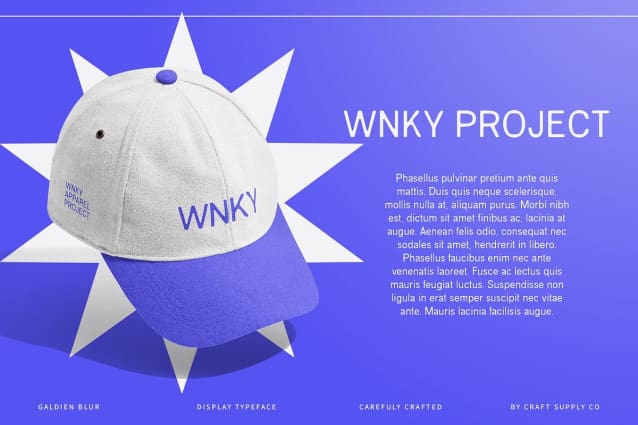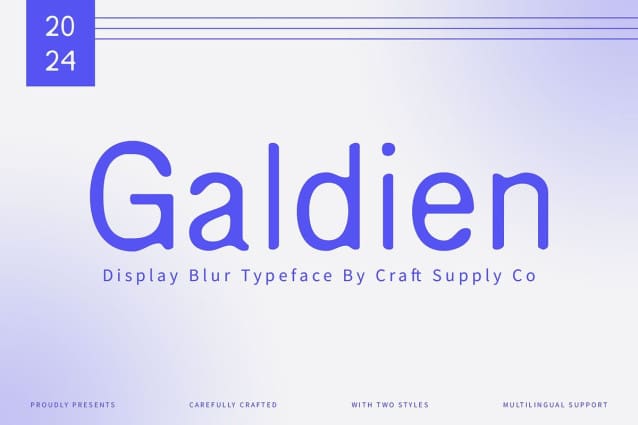
Galdien Blur Font
Galdien Blur Font is a modern sans-serif font that combines the robust, clean lines of a grotesque form with an innovative blur effect. The grotesque design is known for its bold and minimalist approach, making it a staple in modern typography. Galdien Blur takes this a step further by adding a soft, diffused touch through its blur effect, which introduces a unique visual element that differentiates it from conventional sans-serif fonts.
Unique Visual Depth The blur effect introduces a soft, diffused quality to the clean lines of the grotesque design, adding a layer of depth and visual intrigue. This combination creates a unique, dynamic appearance that enhances the font’s impact in any design.
Perfect for Contemporary-Themed Projects Galdien Blur is the go-to choice for projects that demand a balance between boldness and creativity. Its strong grotesque form ensures clarity and impact, while the blur effect adds a touch of innovation, making it perfect for branding, posters, web design, and other contemporary-themed applications. Whether you’re looking to make a statement with your design or simply add a subtle, creative twist, Galdien Blur delivers a memorable and dynamic impression.